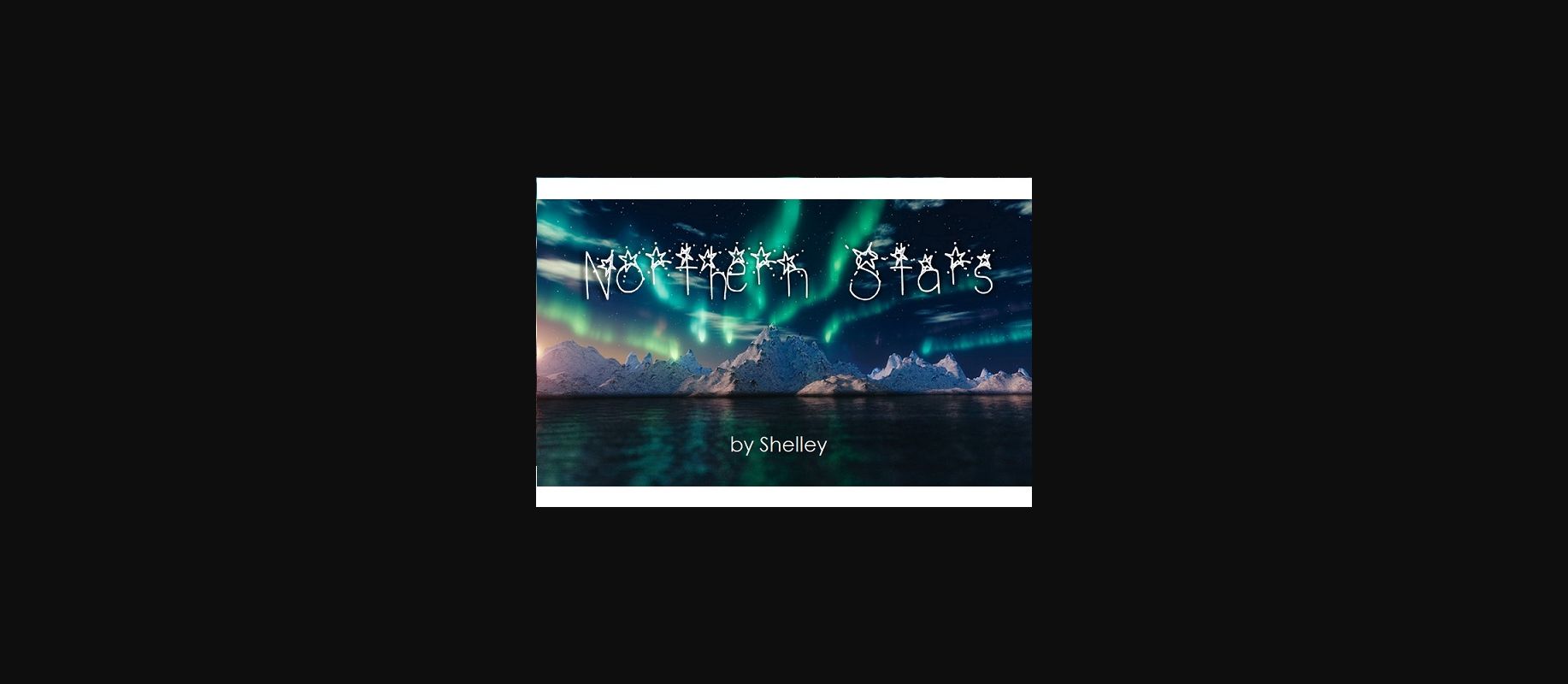
HomeDecorative FontsNorthern Stars Font Decorative Fonts Northern Stars Font FacebookXPinterestWhatsApp 1 of 1 About Northern Stars Font A starry lettered font to bring a light, fun vibe to your writing! DOWNLOAD NOW People also explored Watermelon Font Minerals Buble Font Summer Desert Font Horelios Light Font Ragiffen Font Fancywel Font Butter Crush Font Cristina Font Burntristea Font 285 0 TagsNorthern Stars Font Previous articleWhimsy Dhimsy FontNext articlePhanny Can Font LEAVE A REPLY Cancel reply Comment: Please enter your comment! Name:* Please enter your name here Email:* You have entered an incorrect email address! Please enter your email address here Website: Save my name, email, and website in this browser for the next time I comment. Personal Use Free Made of Concrete Personal Use Free Read more about this font Mail Ray Stuff Personal Use Free Read more about this font Astercla Personal Use Free Read more about this font DREXS Personal Use Free Read more about this font BLOG 5 Fonts That Will Dominate Design Trends in 2026 5 Fonts for 2026 That Will Dominate Design Trends Typography plays a critical role in visual communication, and as we look ahead to 2026, it’s... Best Fonts for T-Shirt Design – Top 2025 Picks To increase your work productivity, choose the most readable fonts. Free vs Paid Fonts: Why Investing in Premium Fonts Is Worth It